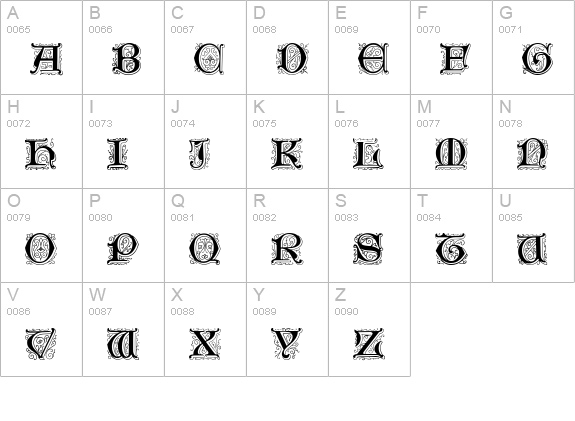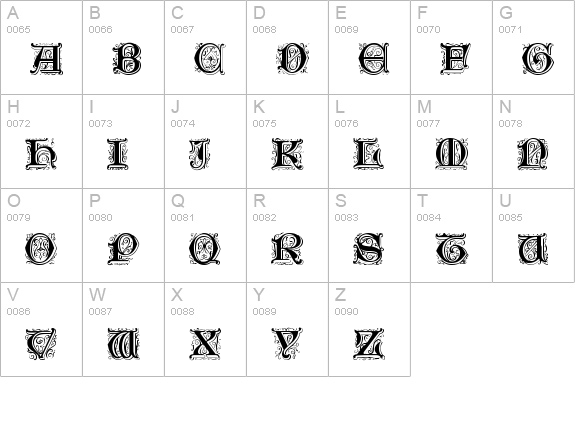
Genzsch Initials Font Details
Genzsch Initials font is a stunning display typeface that exudes elegance and sophistication. Its intricate details and ornate design make it perfect for adding a touch of vintage charm to any project. The elaborate swirls and flourishes of Genzsch Initials font create a sense of grandeur and luxury, making it ideal for invitations, branding, and decorative purposes. What sets Genzsch Initials font apart is not only its timeless appeal but also the fact that it is available for free! Yes, you read that right - this exquisite font can be downloaded at absolutely no cost from FontsMarket.com. Embrace the beauty and classic allure of Genzsch Initials font in your designs and watch them come to life with a touch of old-world charm.